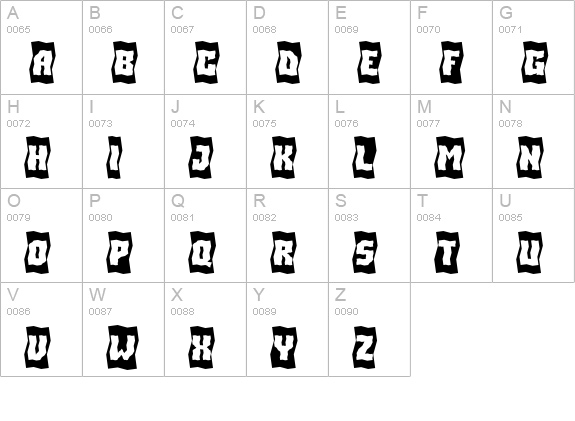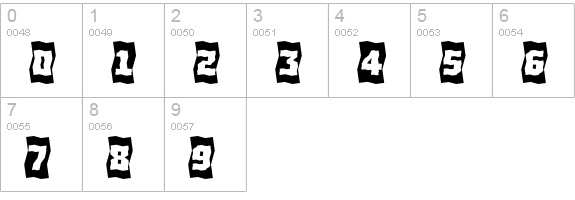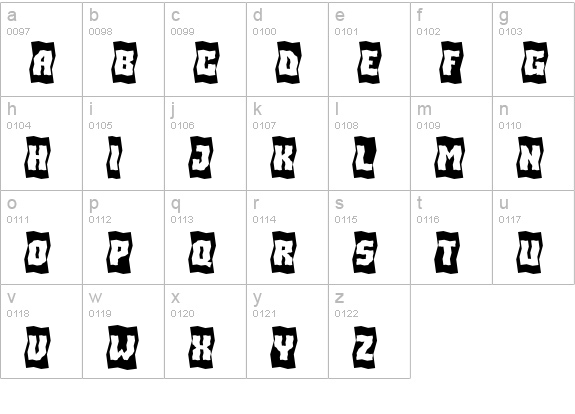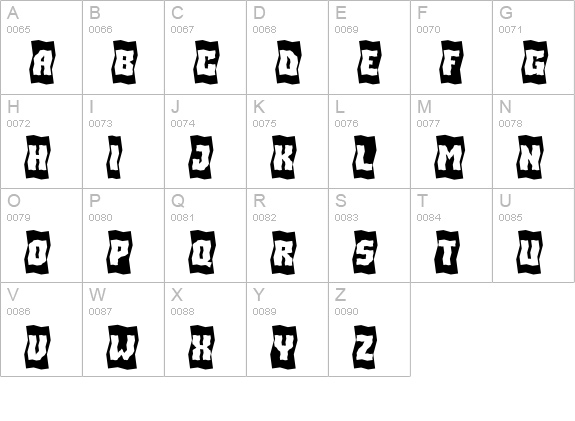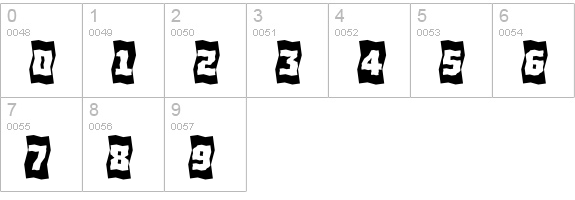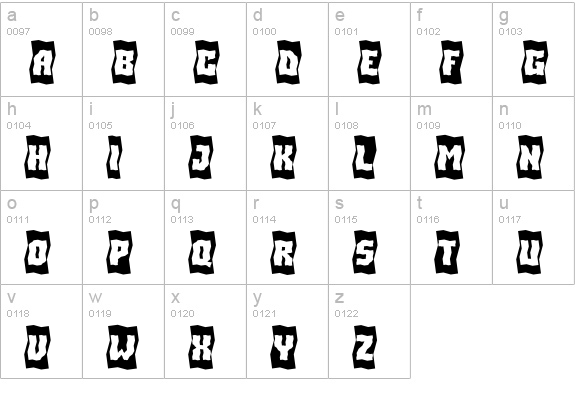
a_SimplerCmFld Bold Font Details
a_SimplerCmFld Bold is a strong, high-contrast variant in the a_SimplerCmFld typeface family \xE2\x80\x94 well suited to headlines, attention-grabbing titles, and strong calls-to-action.